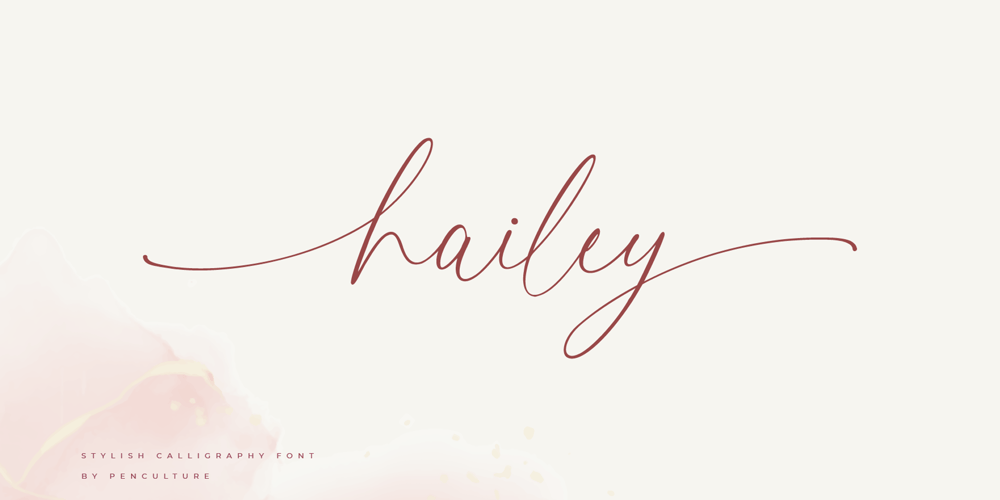
Hailey Calligraphy Font Family was designed by Revo Farsiky and published by Pen Culture. Hailey Calligraphy contains 1 styles and family package options. Introducing “Hailey – Stylish Calligraphy Font”Hailey is a modern calligraphy font that perfect for wedding invitation, branding, logo and many more. this font come with fully uppercase and lowercase, number and punctuation also has beautiful beginning and ending swashes.I really hope you enjoy it – please do let me know what you think, comments & likes are always hugely welcomed and appreciated. More importantly, please don’t hesitate to drop me a message if you have any issues or queries.Thank you